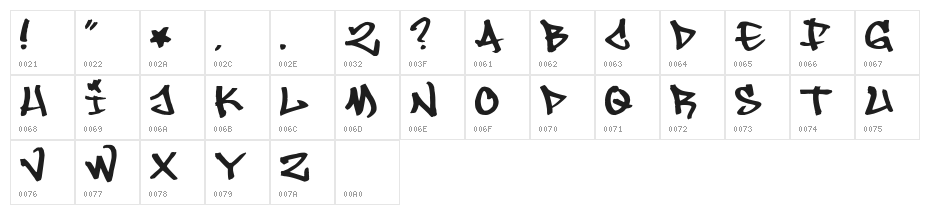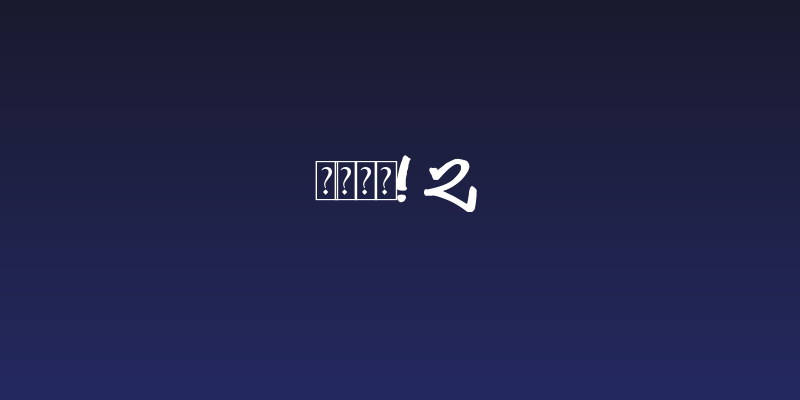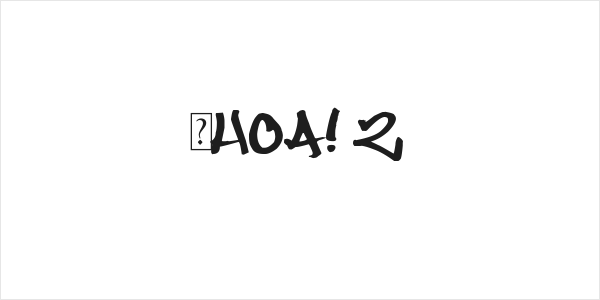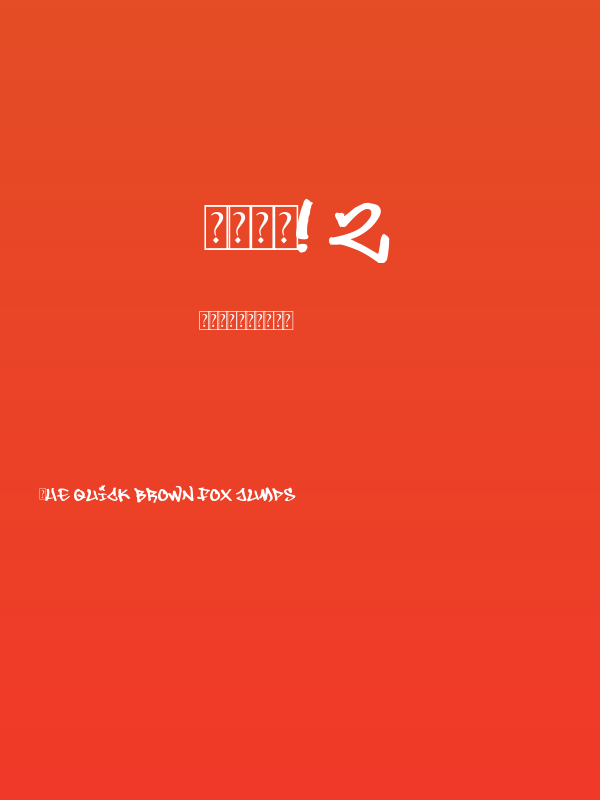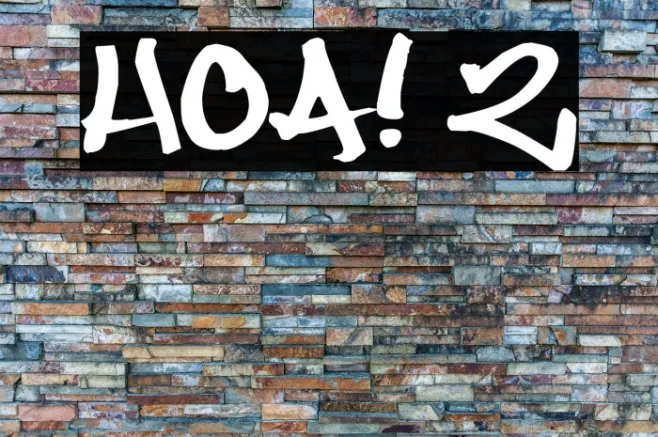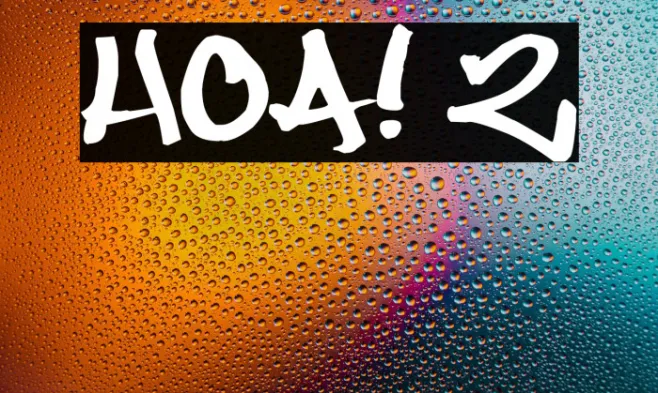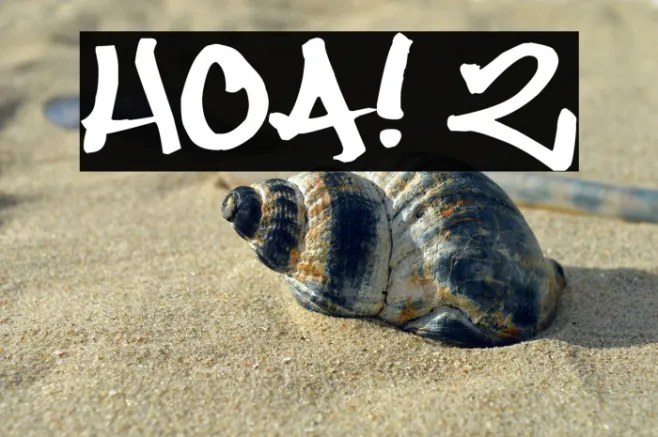
Whoa! 2 Font
Whoa! 2 Description
This font features a bold and dynamic style with a graffiti-like appearance. The uppercase letters are characterized by their thick strokes and angular shapes, giving them a strong and energetic presence. The design includes playful and exaggerated elements, such as varying stroke widths and unexpected angles, which contribute to its urban and edgy aesthetic. The special characters, including punctuation marks, maintain the same bold and expressive style, ensuring consistency throughout the font. This font is ideal for projects that require a youthful and rebellious vibe, making it perfect for street art, music album covers, or urban-themed branding.
| Overall Style | Urban, Edgy, Graffiti |
| Proposed Projects | Street art designs, music album covers, urban-themed branding, event posters. |